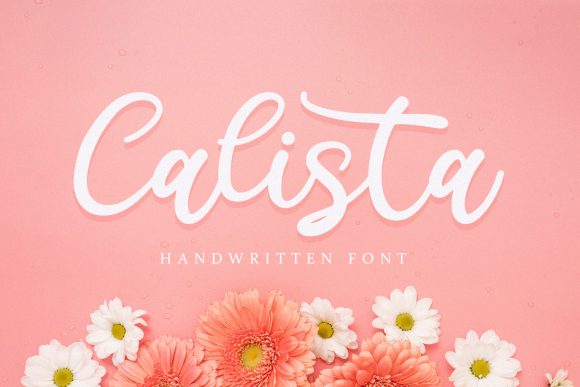
The Calista Font: A Dainty and Round Lettered Handwritten Delight
I’ll never forget the time I was working on a wedding invitation project for a dear friend. I had all the design elements in place – the perfect watercolor flowers, the ideal color palette, and a beautiful layout. But, something was missing. The font I had chosen just didn’t feel right. It was then that I stumbled upon the Calista font, and it instantly elevated my design to a whole new level.
Calista is a dainty and round lettered handwritten font that looks stunning on wedding invitations, thank you cards, quotes, greeting cards, logos, business cards, and every other design that needs a handwritten touch. In this article, I’ll share my experience with the Calista font, its features, and how to make the most of it in your designs.
- ✨ The Calista font has a unique, hand-crafted feel that adds a personal touch to any design.
- ✅ It’s incredibly versatile and can be used for a wide range of projects, from wedding invitations to business cards.
- 💕 The font has a romantic, whimsical feel that’s perfect for designs that require a touch of elegance.
- 👍 The character set is extensive, with plenty of glyphs and stylistic alternates to experiment with.
While the Calista font is an excellent choice for many designs, there are a few things to keep in mind:
- ⚠️ The font can be a bit tricky to read at smaller sizes, so it’s best to use it for headlines or titles rather than body text.
- 🤔 Some of the glyphs and stylistic alternates can be a bit finicky, requiring some experimentation to get the desired look.
The Story Behind Calista
The Calista font was designed with the intention of creating a beautiful, handwritten font that would add a personal touch to any design. The designer aimed to create a font that was both elegant and approachable, with a unique character that would stand out in any design.
| Author | Naharstd |
Q: What is the Calista font best used for?
A: The Calista font is best used for designs that require a handwritten touch, such as wedding invitations, thank you cards, quotes, and greeting cards.
Q: Is the Calista font easy to read?
A: The Calista font can be a bit tricky to read at smaller sizes, so it’s best to use it for headlines or titles rather than body text.